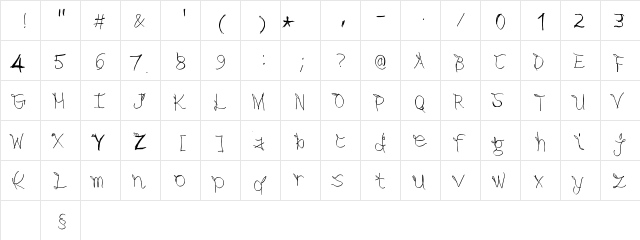
abdn font Regular
Design Context for abdn font Typeface
abdn font is a composed and adaptable typeface that performs quietly and consistently across a wide range of design contexts.